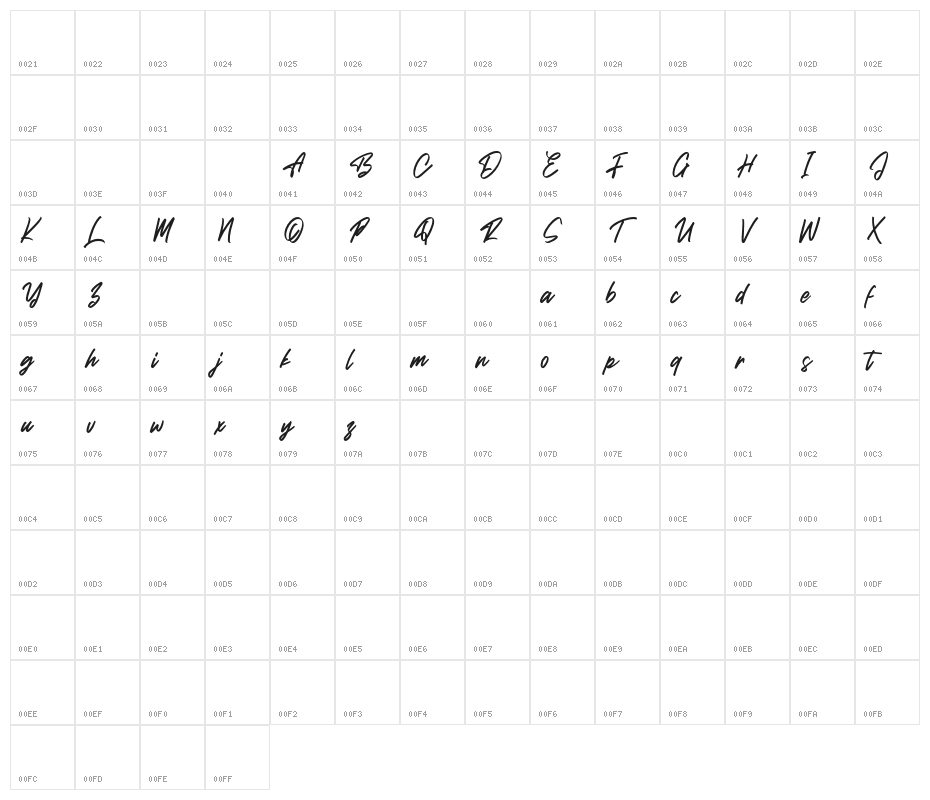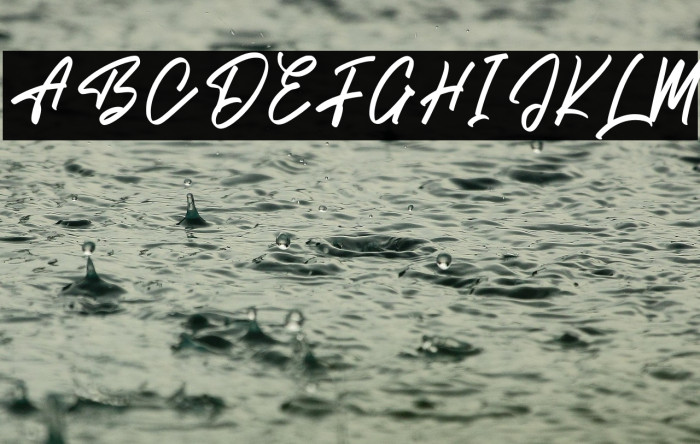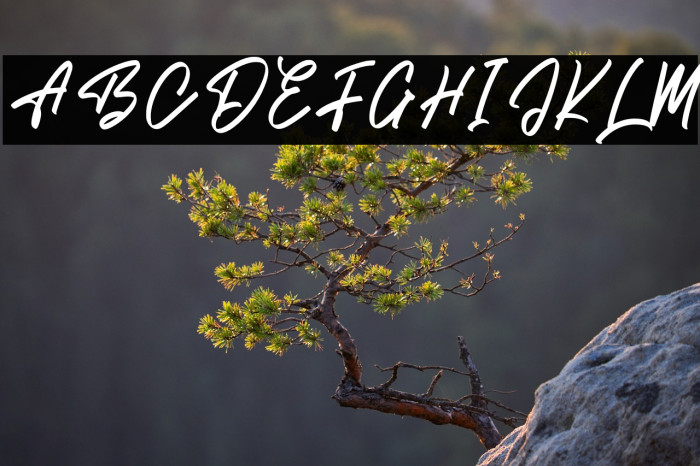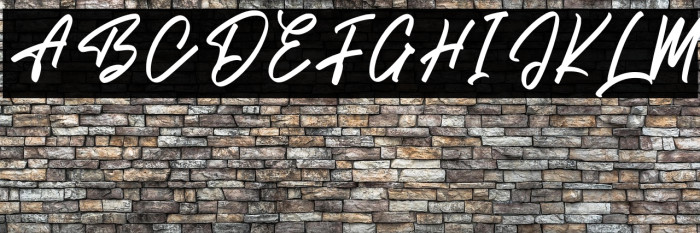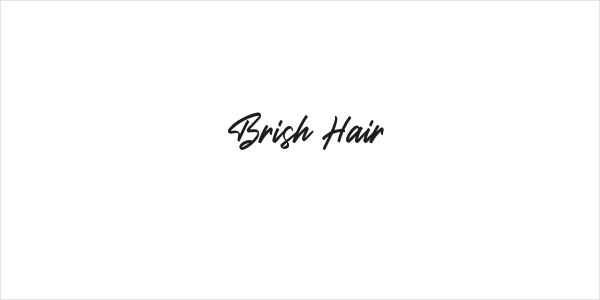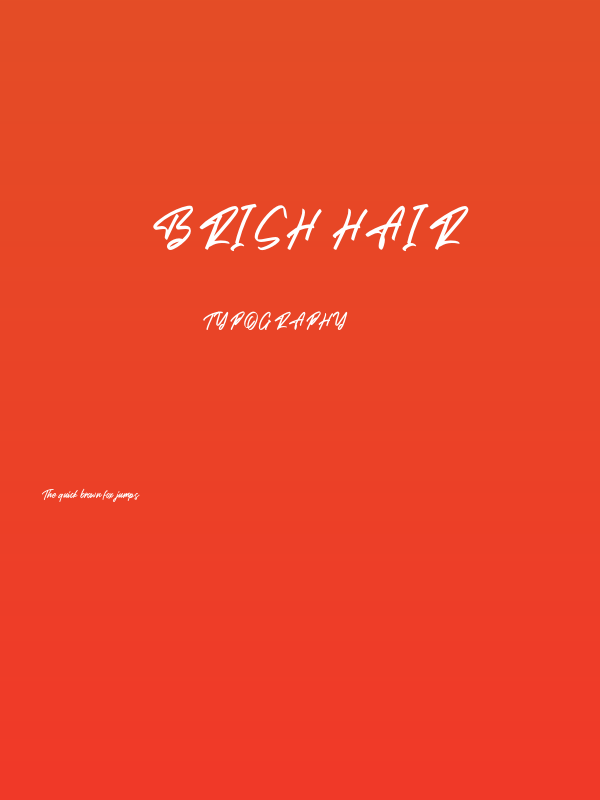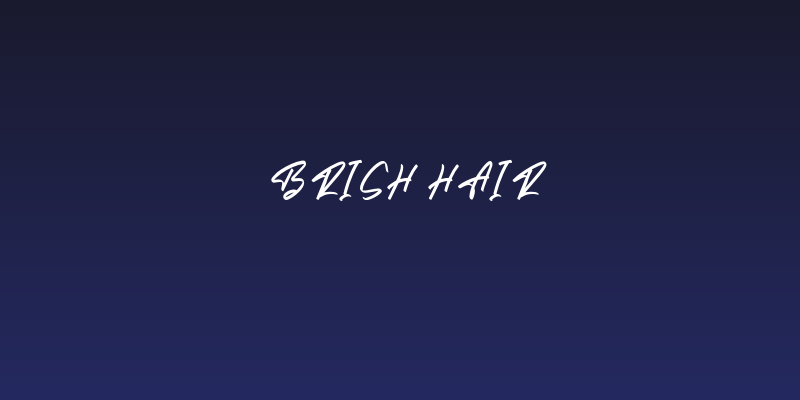
Brish Hair Font
Brish Hair Description
This font features a dynamic and flowing script style that mimics the fluidity of handwriting. The uppercase letters are bold and expressive, with sweeping curves and elegant loops that convey a sense of movement and grace. The lowercase letters maintain a consistent style, with smooth connections between each character, enhancing the handwritten feel. The overall appearance is both stylish and approachable, making it suitable for a variety of creative projects. The font's design is characterized by a medium contrast in stroke thickness, adding to its legibility while maintaining an artistic flair.